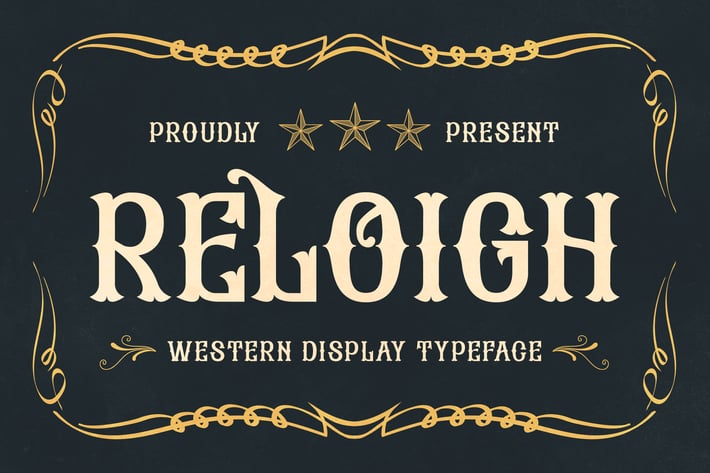
Reloigh - Western Display Typeface
Introducing "Reloigh" - a Western display typeface that captures the spirit of the Wild West with its rugged charm and vintage flair.
With bold letterforms and rustic details, "Reloigh" evokes the essence of cowboy culture, making it perfect for posters, branding, apparel design, and more.
Embrace the adventurous spirit of the frontier with "Reloigh" as it effortlessly enhances your designs with its rugged typography and Western-inspired aesthetic.
Step into the world of the Wild West with "Reloigh" and let your creativity roam free on the open range.
– Lowercase
– Ligature
– Alternate
– Multilingual Support